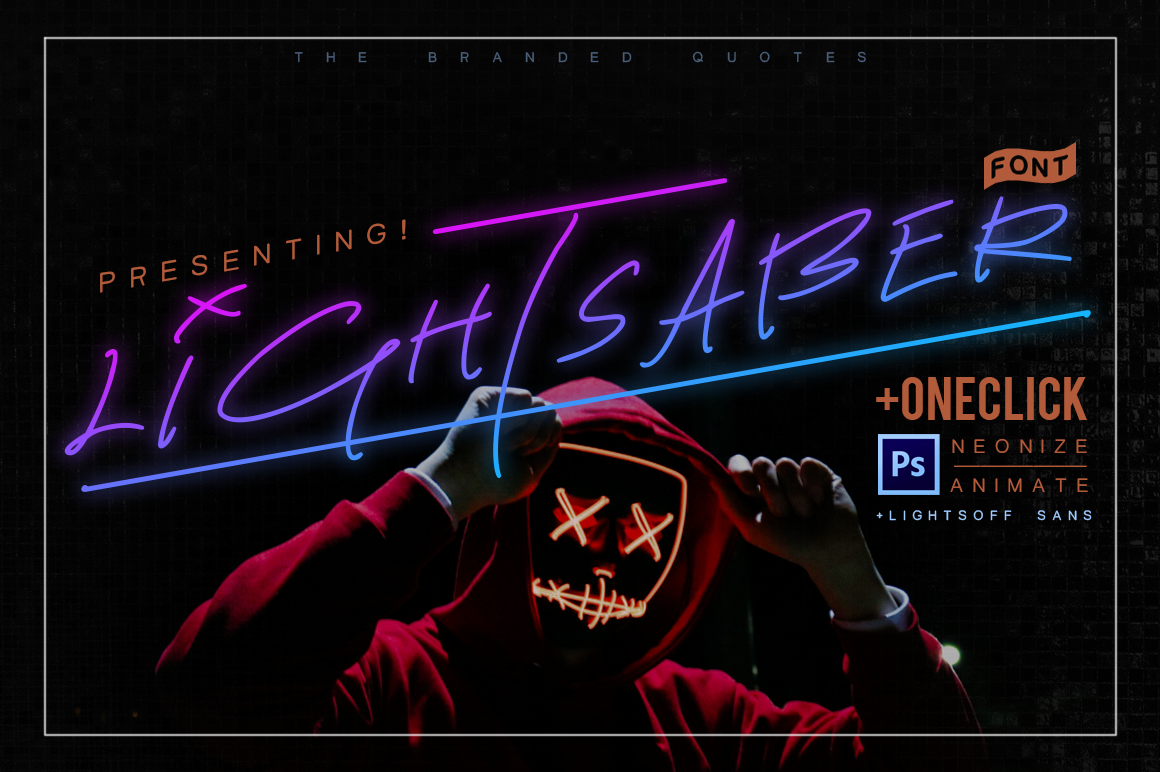
When you think everything is stagnant, here comes Lightsaber Font! It's like an all capital script written at the back pages of a college student's notebook. Lightsaber bears a new approach on handlettering style with equally slanted monolines. Those "i" and "o" glyph will give your thumbnail a fierce look while preserving the essence of your photographs. Plus, put an animated text on the header of your blog with our Lightsaber Neon Animation!
Lightsaber - contains an all capital uppercase and lowercase. Combine both to achieve a natural look. It also contains some swashes and special glyphs found on this symbols: ( ) / [ ] _
Lightsoff Sans - paired to Lightsaber with all capital letters and has a great spacing. Lightsoff Sans works fine on most design presentations.
Tip: You can combine Lightsaber's first letter along with Lightsoff Sans' glyphs for a formal-looking signature.
Lightsaber Neonize
Put neon effect on everything! Neonize your text even with gradient effect. Neonize your logo! Neonize anything! -
Lightsaber Animate
This is the future of neon effect. With this invention, you can make your neon designs go electrocuted!